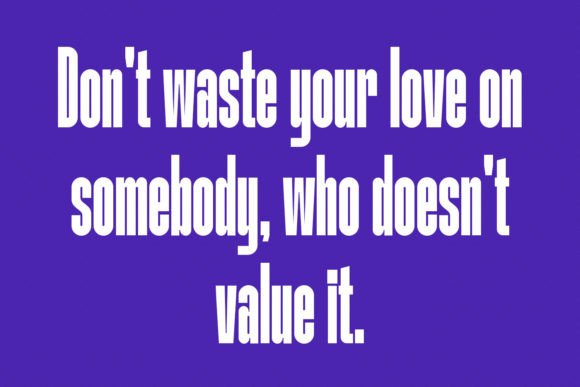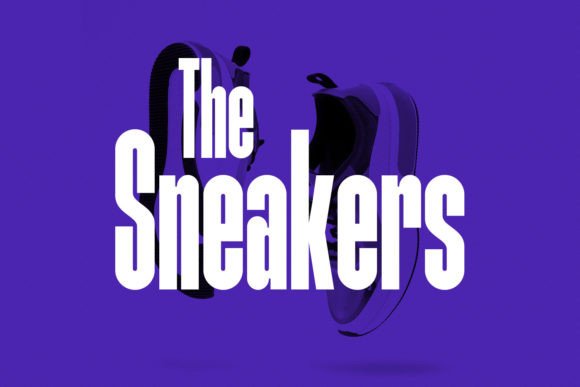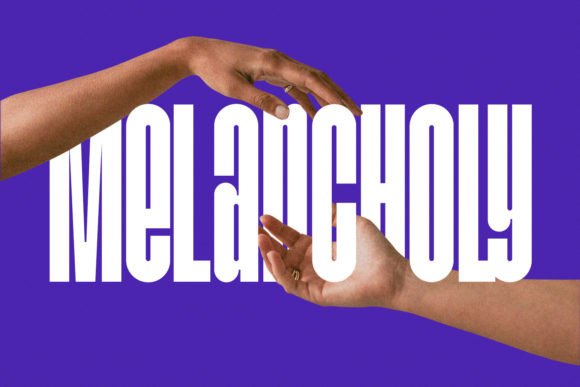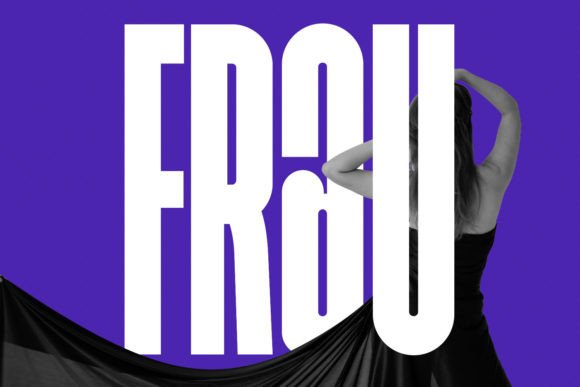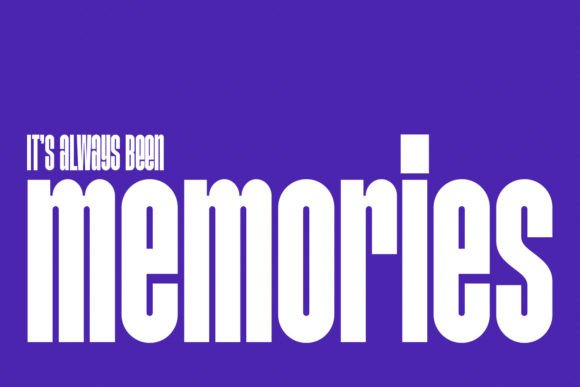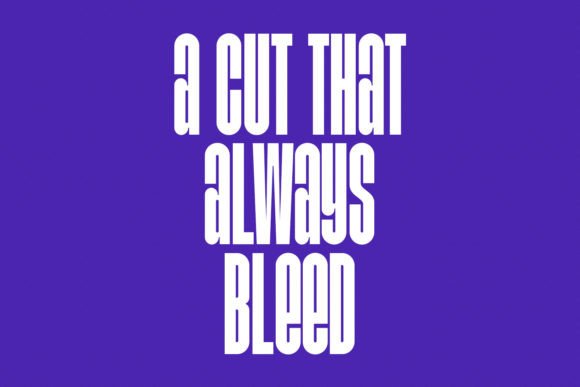
Introduction to Joy Braun Font
Imagine the thrill of bringing a creative project to life – the perfect blend of art, imagination, and technical skill. As designers, we’ve all been there, searching for that elusive design resource that elevates our work from ordinary to extraordinary. For those seeking a modern sans display font that’s as versatile as it is stylish, the Joy Braun Font is the perfect discovery.
This free download is more than just a pretty face – it’s a high-quality design tool that’s waiting to be unleashed on your next creative project. With its transparent background and sleek aesthetic, Joy Braun Font is the ideal choice for logos, weddings, invitations, quotes, advertisements, and more. Whether you’re a seasoned pro or just starting out, this font is sure to bring a touch of sophistication and elegance to your designs.
Key Features of Joy Braun Font
- High-quality design resource with a unique, playful style.
Honest Review: Joy Braun Font
As a designer, I’m always on the lookout for high-quality design resources to elevate my creative projects. The Joy Braun Font caught my attention, and I decided to give it a try.
- ✨ The font’s modern and elegant design makes it perfect for a wide range of creative projects.
- ✨ The font is highly legible, even at small font sizes.
- ⚠️ The font doesn’t come with a transparent background option, which can be a bit limiting for some designers.
- ⚠️ The font family is relatively small, with only a few weights and styles available.
Overall, I’m impressed with the Joy Braun Font’s quality and versatility. While it may not be the most comprehensive font family, it’s a great addition to any designer’s toolkit. With its free download option and modern design, it’s definitely worth considering for your next creative project.
The Joy Braun Font is a versatile design resource that can be used in a variety of creative projects, including logos, branding materials, infographics, and more. Its high-quality design and transparent background make it an ideal choice for designers looking to add a touch of elegance and sophistication to their work.